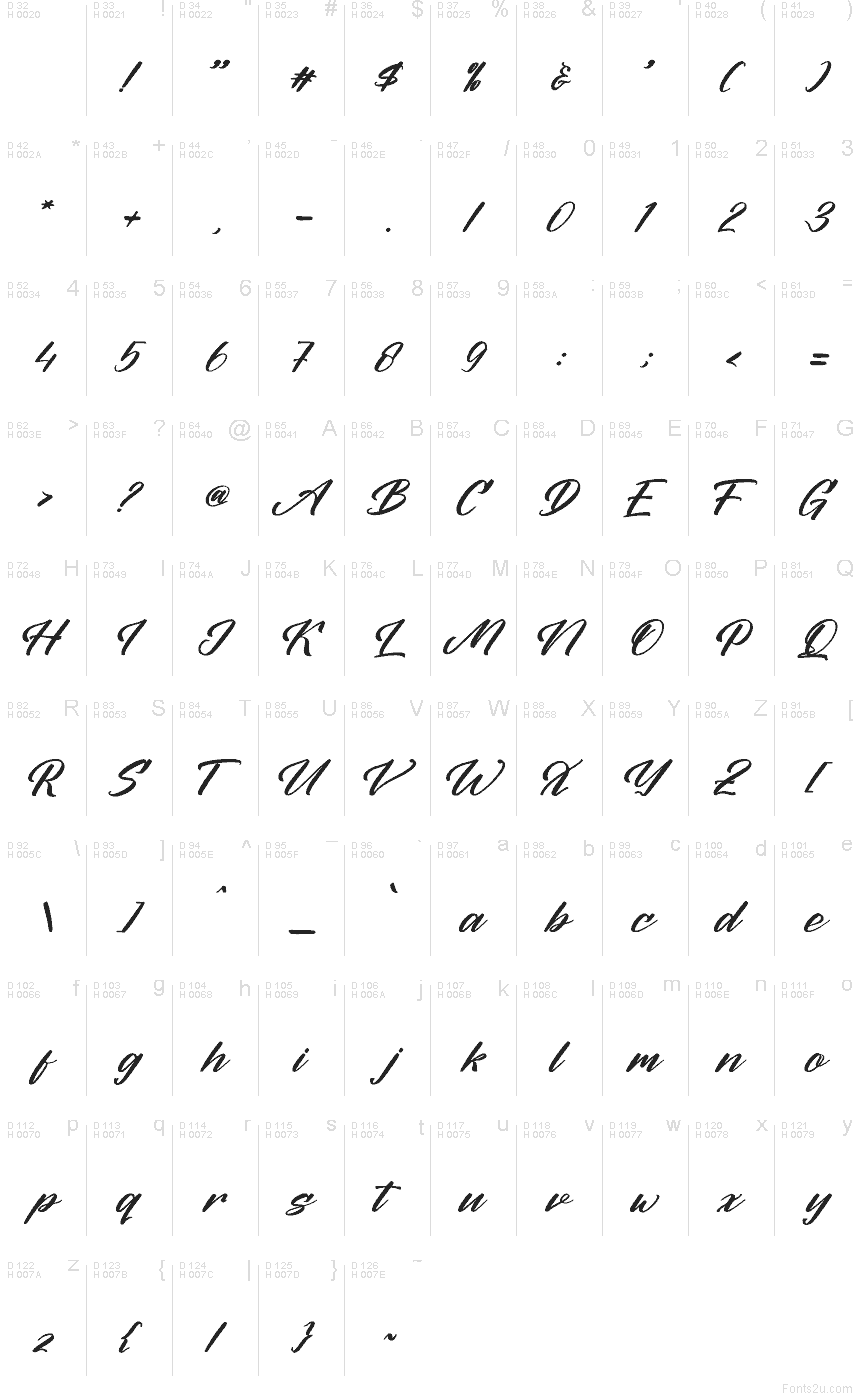
Nautical Prestige Italic
Nautical Prestige Italic font by Letterena Studios is a free calligraphy typeface that looks like it’s been brushed in one confident motion. Its smooth, slanted strokes and sweeping tails feel polished yet relaxed, like handwriting on a luxury luggage tag or a yacht invitation. The letters knit tightly together, creating a flowing wordshape that reads clearly even at medium sizes while still feeling lush and inky up close.
Using Nautical Prestige Italic, you can give logos, wedding invitations, product packaging, boutique signage, social media headers, and event posters a sense of effortless sophistication. This free font shines when you let it breathe in short phrases or names; pair it with a clean sans serif for body text and keep the script a size or two larger so its graceful curves stay crisp and legible.